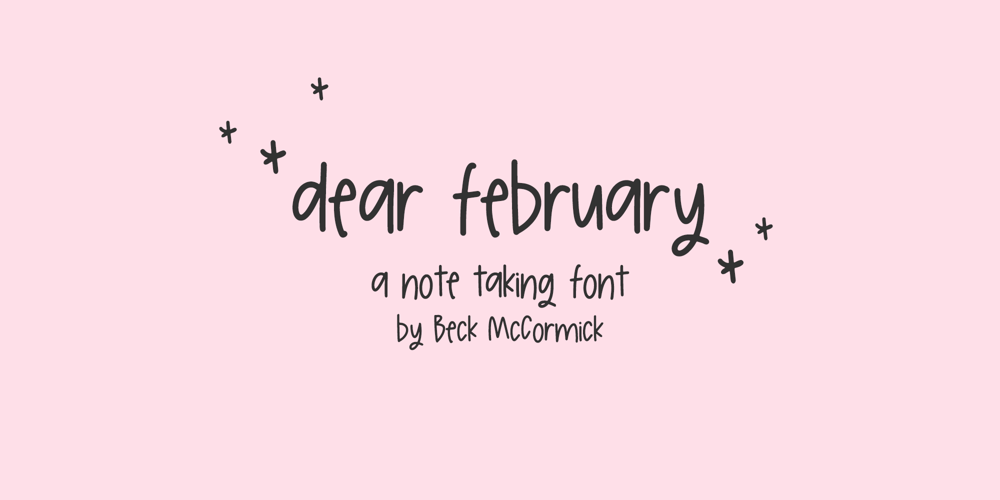
Dear February Sans Font Family was designed by Beck McCormick and published by BeckMcCormick. Dear February Sans contains 1 styles and family package options. Introducing Dear February, a cute handwriting font designed for GoodNotes, digital planning, or note taking apps. Dear February can also be used for other print design like magazines and flyers or printed marketing materials. This font can also be used for adorable logo design & branding items, digital marketing materials, and social media items!Dear February includes:- full upper + lowercase characters- numbers + punctuation- PUA-encodingExtensive Language Support:Western European, Central European, South Eastern European, South American, Oceanian, Vietnamese, EsperantoDear February can be used with graphic design programs such as Illustrator or Photoshop, word processing programs like Pages or Word, Design Space, Silhouette, Procreate, Canva Pro, Glowforge, GoodNotes, & more. This font is an installable for desktop & laptop machines, as well as iPads or iPhones. See below for links to help with installation.